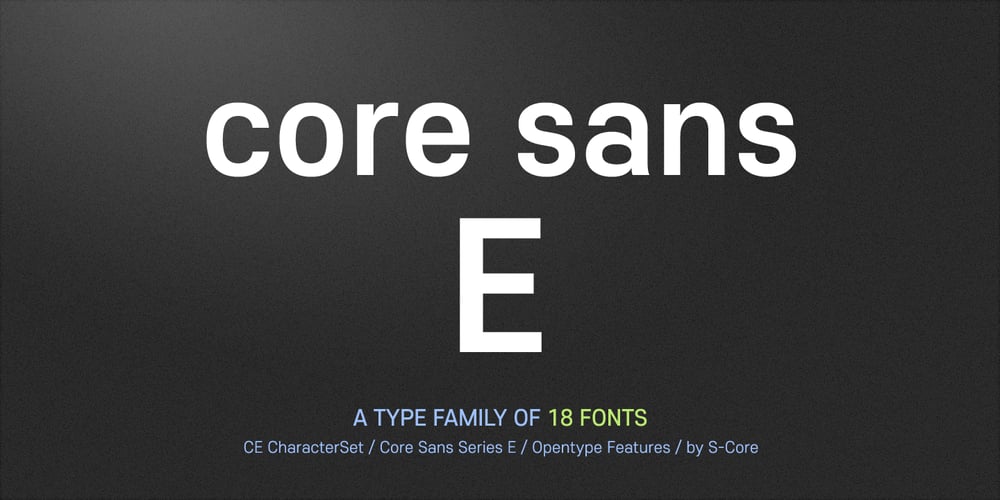
Core Sans E Font Family was designed by Hyun-Seung Lee, Dae-Hoon Hahm, Dong-Kwan Kim and published by S-Core. Core Sans E contains 18 styles and family package options. The Core Sans E family is part of the Core Sans series, such as Core Sans N, Core Sans M, Core Sans A, Core Sans G and Core Sans D. This is a modernized, grotesque font family with horizontal terminals, low-stroke contrast, enclosed apertures and little-line-width variation. Its tall x-height makes the text legible; and the spaces between individual letter forms are precisely adjusted to create the perfect typesetting. The Core Sans E family consists of 9 weights, from Thin to Black with italics. It supports WGL4, which provides a wide range of character sets—Greek, Cyrillic, and Central and Eastern European characters. Each font includes support for tabular numbers, arrows, mathematical operators, and OpenType features (such as proportional figures, numerators, denominators, subscript, superscript, scientific inferiors, fractions, case features, and standard ligatures). We highly recommend it for use in books, web pages, screen displays, and so on.